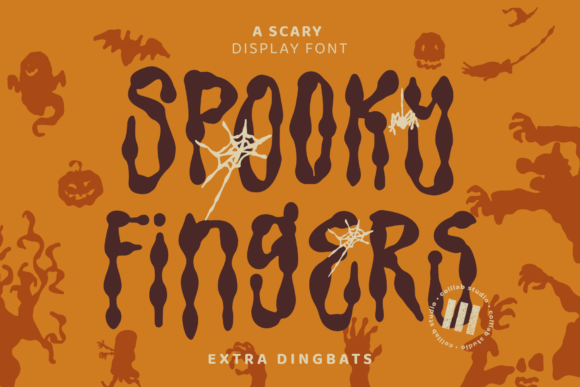
**Step into the eerie realm of Spooky Fingers Font, where your designs will dance with a touch of haunting elegance.**
Unleash your creativity with this captivating display font, the perfect companion for Halloween enthusiasts and those seeking an unconventional flair. Spooky Fingers invites you to embrace the spooky spirit, transforming your projects into mesmerizing works of art.
Dare to venture beyond the ordinary and let Spooky Fingers guide you through a labyrinth of visual enchantment. Its playful, yet sophisticated charm will cast a spell on your audience, leaving them spellbound by the intricate details and enchanting curves of each character.
Whether you're crafting spine-tingling invitations, spine-chilling posters, or simply adding a touch of whimsy to your designs, Spooky Fingers will weave its magic, creating a haunting yet irresistible ambiance.
Join the growing legion of designers who have fallen under the alluring spell of Spooky Fingers and watch your creations come alive with an otherworldly allure. Let this enchanting font transport you to a realm where imagination takes flight and the boundaries of creativity dissolve.
**Embrace the spooky season or unleash your inner rebel with Spooky Fingers Font – the key to unlocking a world of captivating designs.**